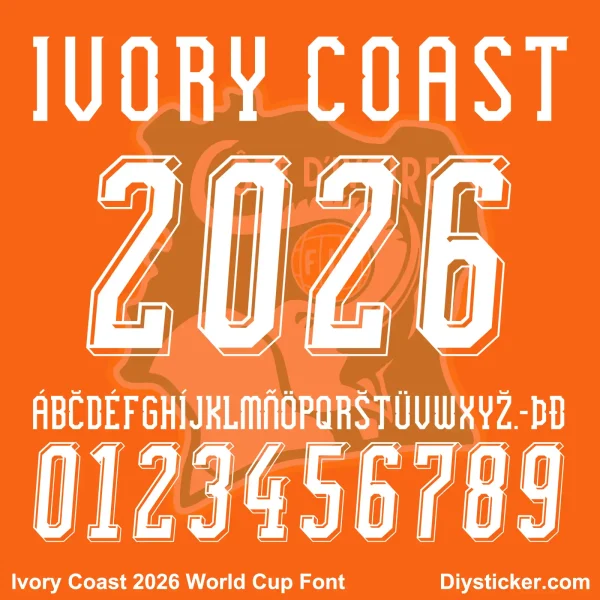
Elevate your sports branding with the Ivory Coast 2026 World Cup Font.
Inspired by the “Les Éléphants” vibrant culture and modern football aesthetics, this font is designed for precision and impact. Whether you are creating fan gear, customizing jerseys, or designing sports graphics, this comprehensive kit provides professional-grade results.
Key Features:
• Versatile Use: Optimized for both Ivory Coast Home and Away 2026 kits.
• Full Character Set: Complete alphabet, numbers, and special symbols for player names.
• Professional Quality: Sharp edges and clean lines, perfect for large-scale printing and Heat Transfer Vinyl (HTV).